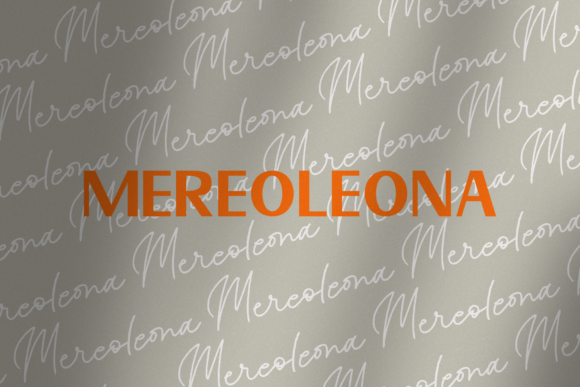
Journey into the captivating world of Mereoleona Duo Font, a remarkable creation from the design studio zuzulgo. Mereoleona isn't just a font; it's a gateway to unleashing your creativity. Dive into this dynamic duo of fonts that blend harmoniously to produce stunning results. With Mereoleona, your designs will radiate with a charm that captures attention and leaves a lasting impression.
Mereoleona's duo nature grants you boundless possibilities. The combination of a refined sans serif font and its artistic handwritten counterpart opens up a mesmerizing spectrum of design options. Craft logos that demand attention, create social media posts that pop, or design stunning invitations that resonate with individuality. Mereoleona isn't just a font; it's an artistic toolset for the modern creative.
The sans serif font exudes a refined elegance, its clean lines and precise curves adding a touch of sophistication to any project. The handwritten font, on the other hand, dances across the page with its expressive strokes, infusing your designs with a captivating energy. Together, they form a symbiotic relationship that breathes life into your creative visions.
With Mereoleona, you'll find yourself crafting designs that ignite emotions, convey messages with clarity, and leave a lasting impact. It's a font duo meticulously crafted to empower your creativity, enabling you to weave tales through typography and create designs that resonate with your audience. Let Mereoleona be your muse, and watch as your designs metamorphose into works of art.
Don't settle for ordinary fonts; embrace the allure of Mereoleona Duo Font. Its versatility empowers you to navigate seamlessly across various design domains, leaving a trail of visual enchantment in your wake. Mereoleona isn't merely a font; it's an investment in your creative pursuits, a companion on your journey to design excellence.
Unleash the power of Mereoleona Duo Font today, and embark on a creative adventure that will transform your designs into masterpieces. Let your imagination soar, let your creativity flourish, and let Mereoleona be the catalyst that ignites your artistic brilliance.